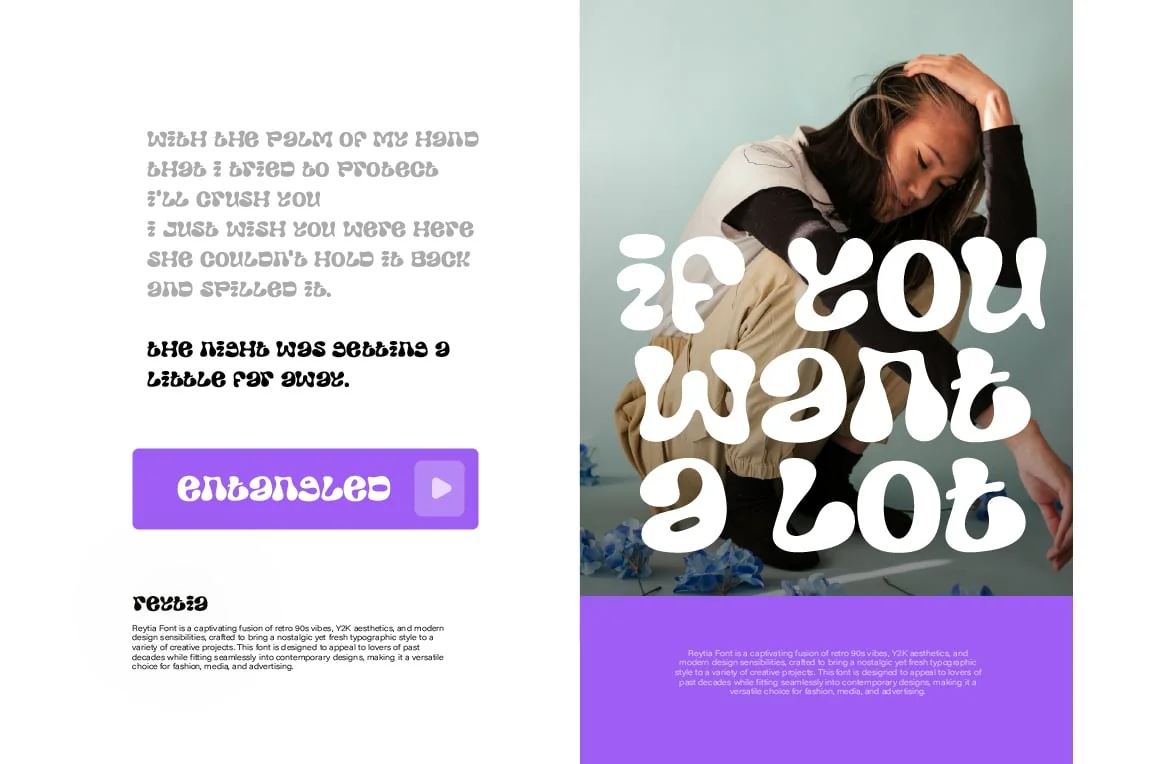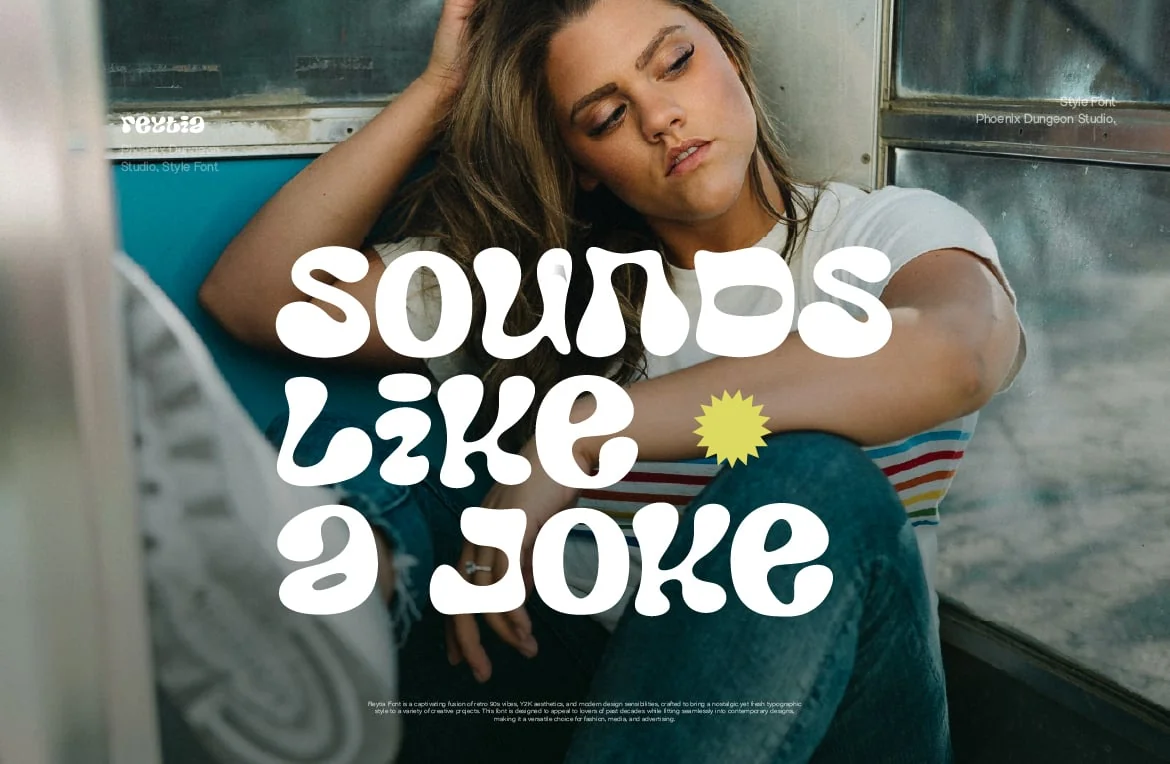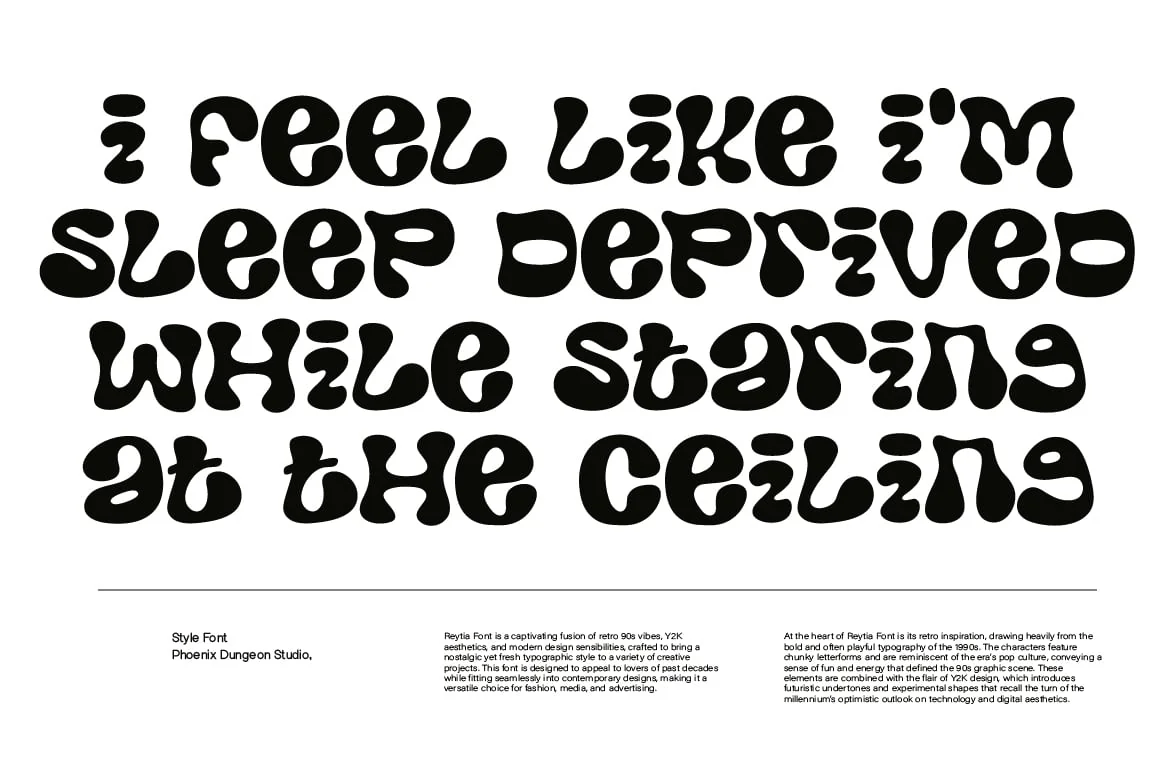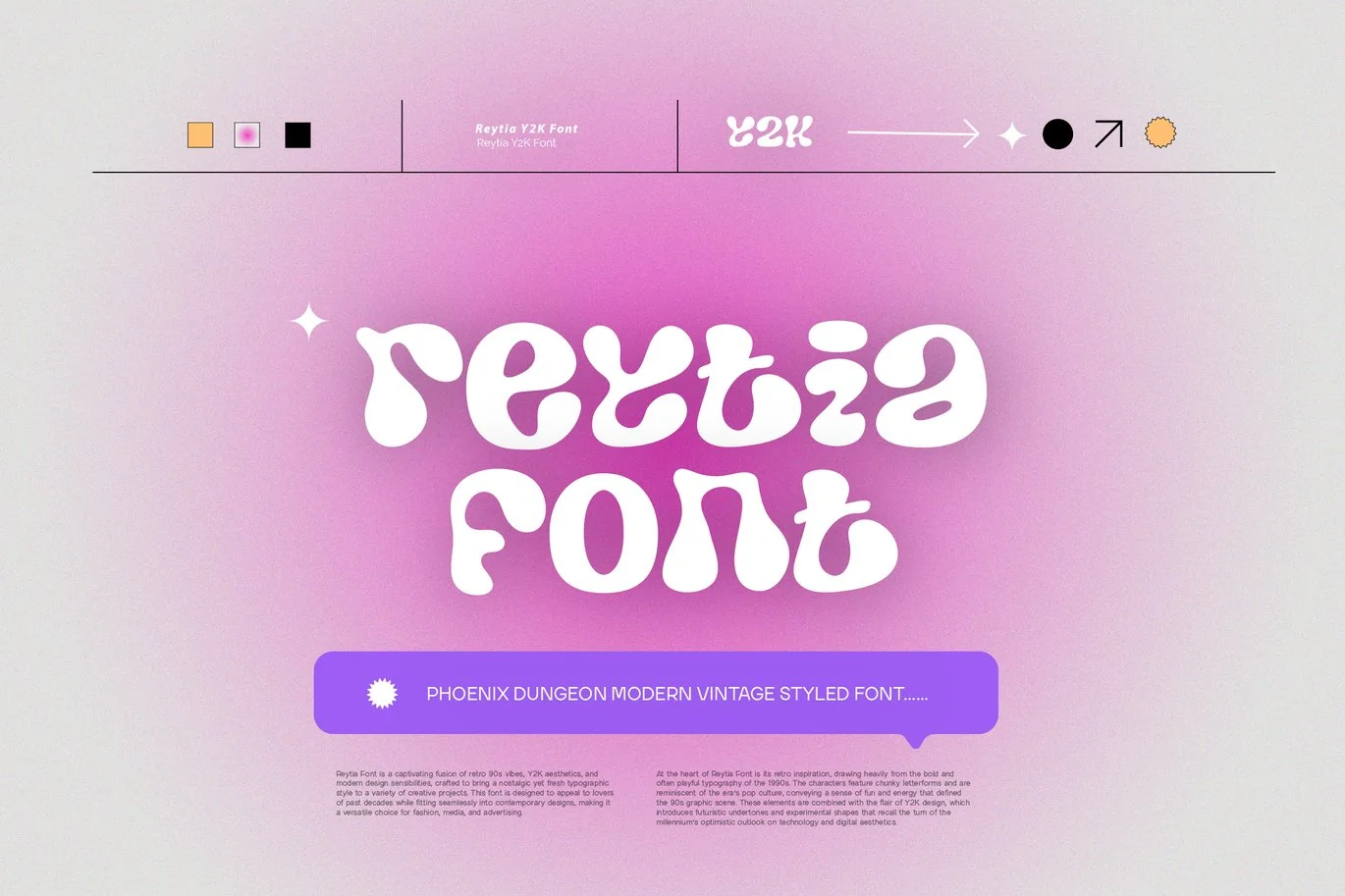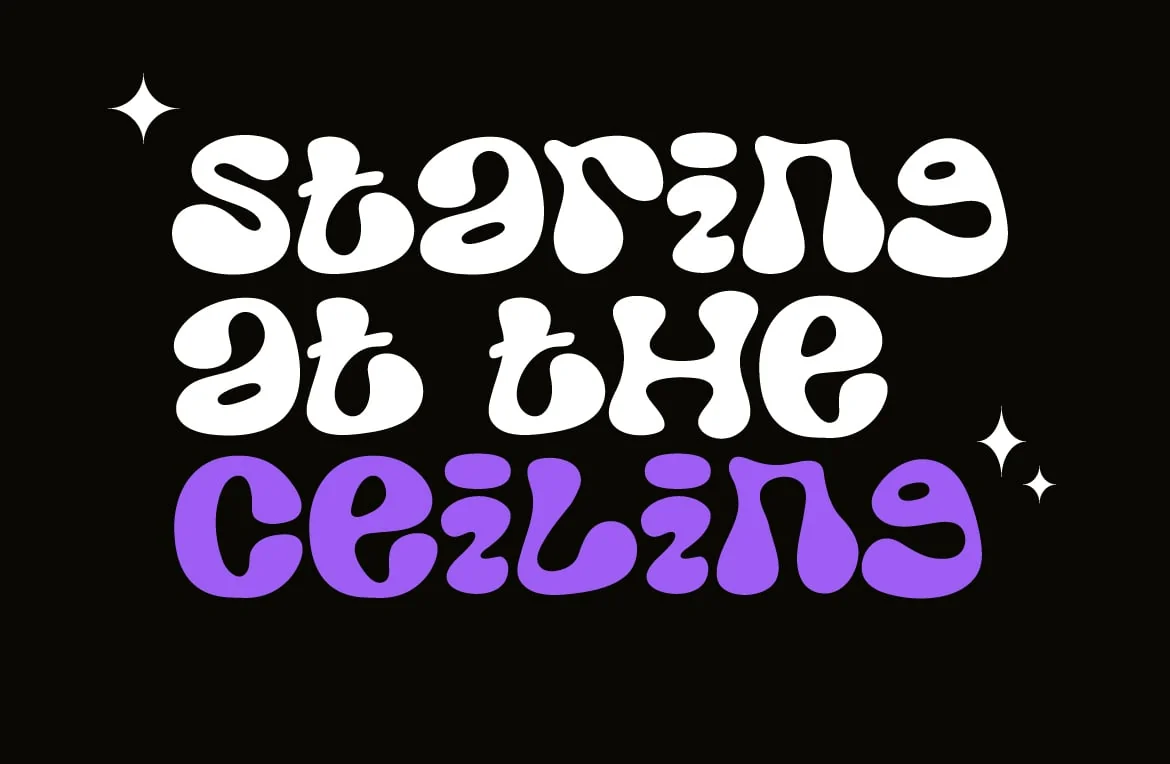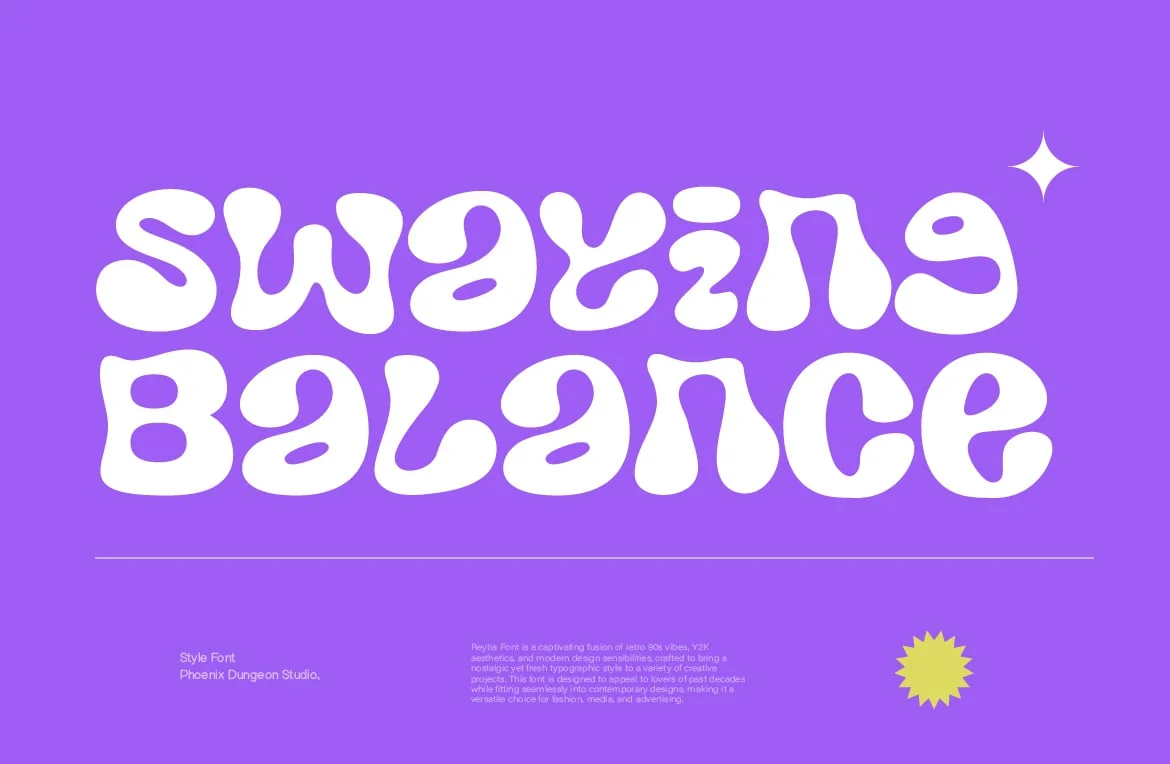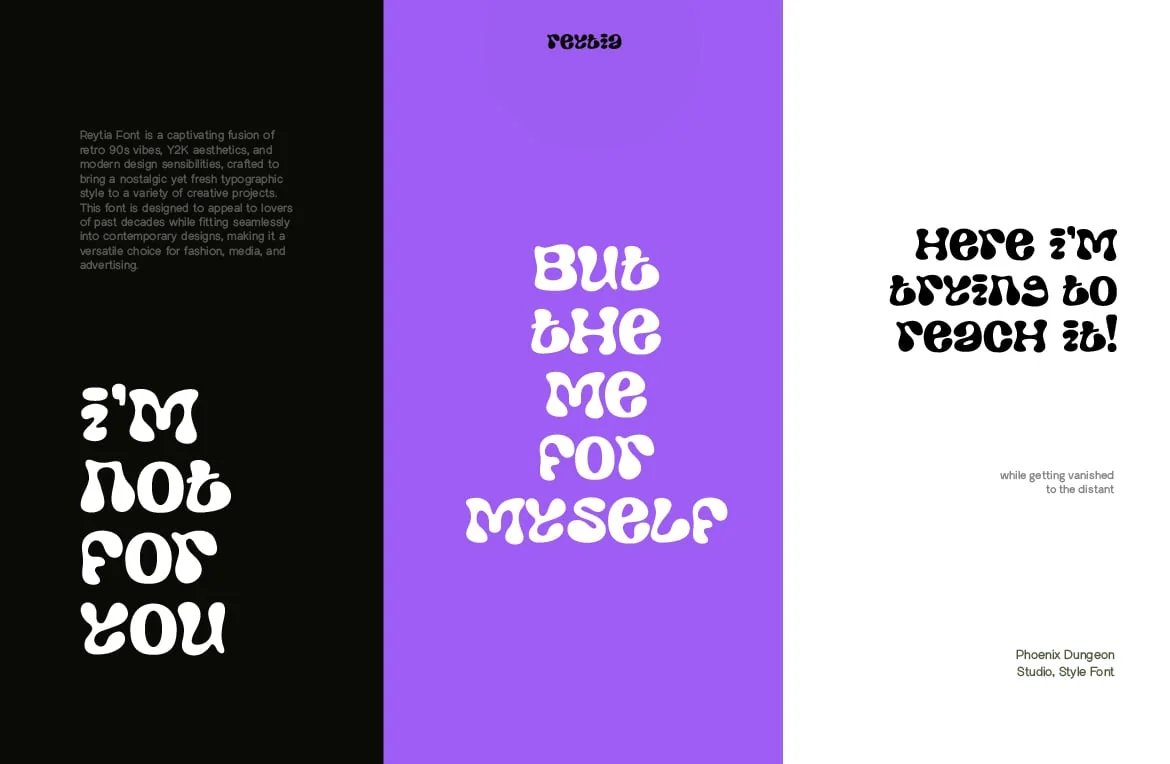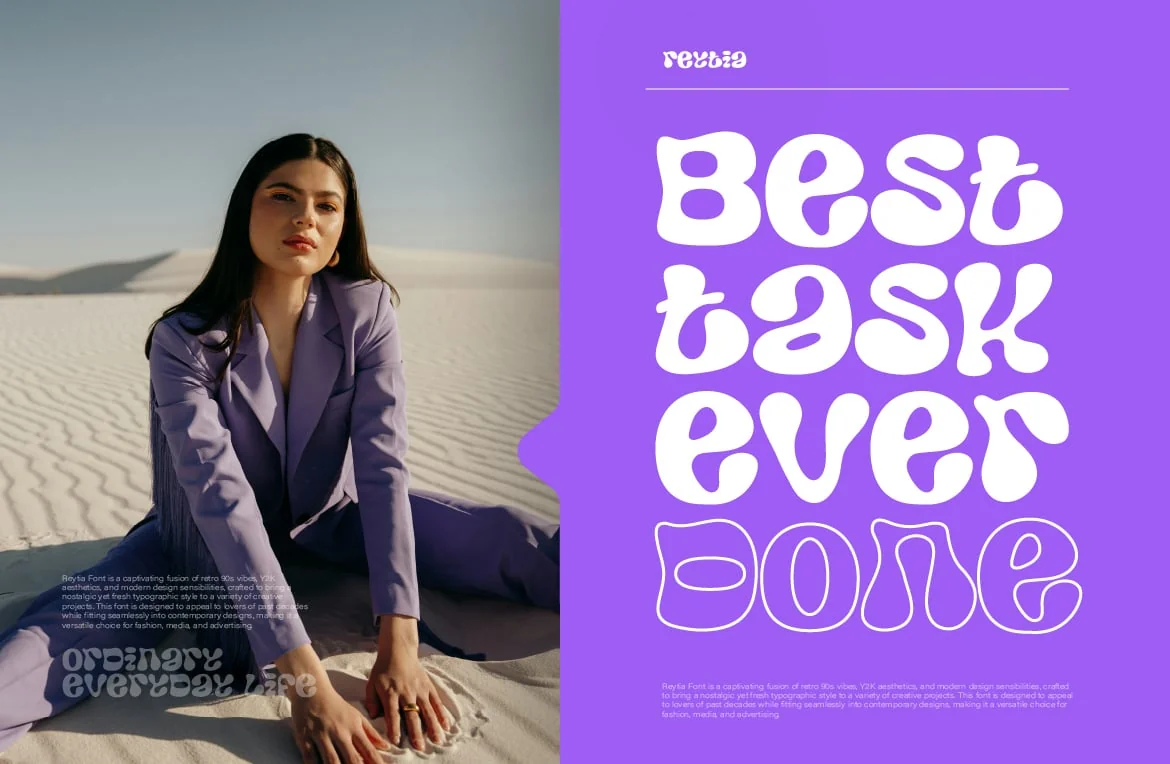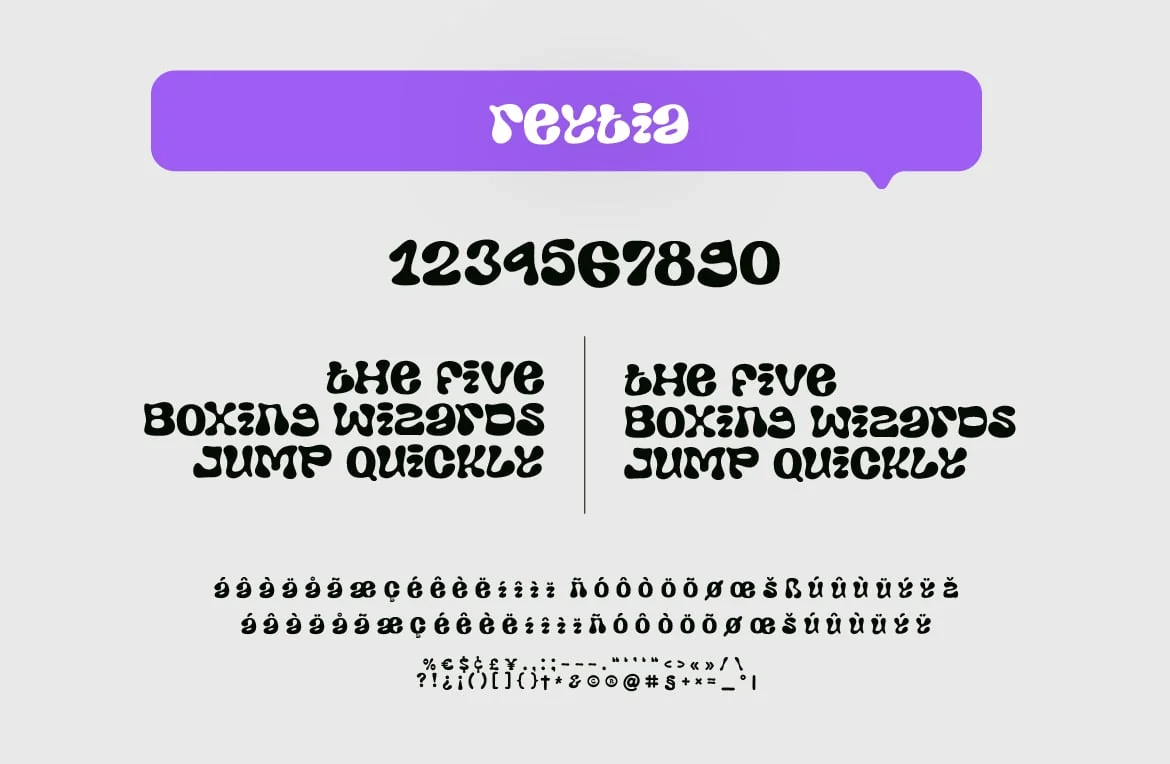
Reytia Font
Reytia Font is a captivating fusion of retro 90s vibes, Y2K aesthetics, and modern design sensibilities, crafted to bring a nostalgic yet fresh typographic style to a variety of creative projects. This font is designed to appeal to lovers of past decades while fitting seamlessly into contemporary designs, making it a versatile choice for fashion, media, and advertising.